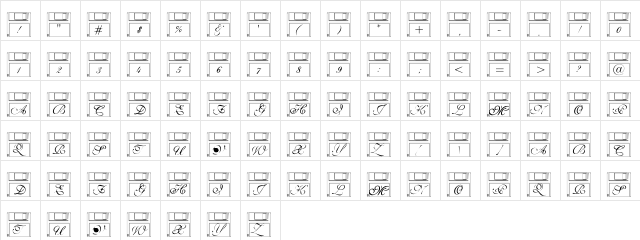
Pf_disc ette Font Preview
Pf_disc ette
Pf_disc ette Font Details
Design Context for Pf_disc Typeface
Pf_disc is a composed and adaptable typeface that performs quietly and consistently across a wide range of design contexts.